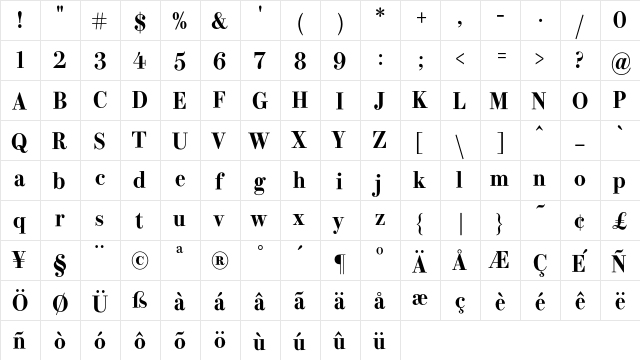
Ironbridge ExtraBold Font Preview
Ironbridge ExtraBold
Design Context for Ironbridge Typeface
Ironbridge offers clean, dependable letterforms without strong stylistic allegiance, making it a practical choice for designers who need flexibility. The heavy weight commands attention and anchors typographic hierarchies.